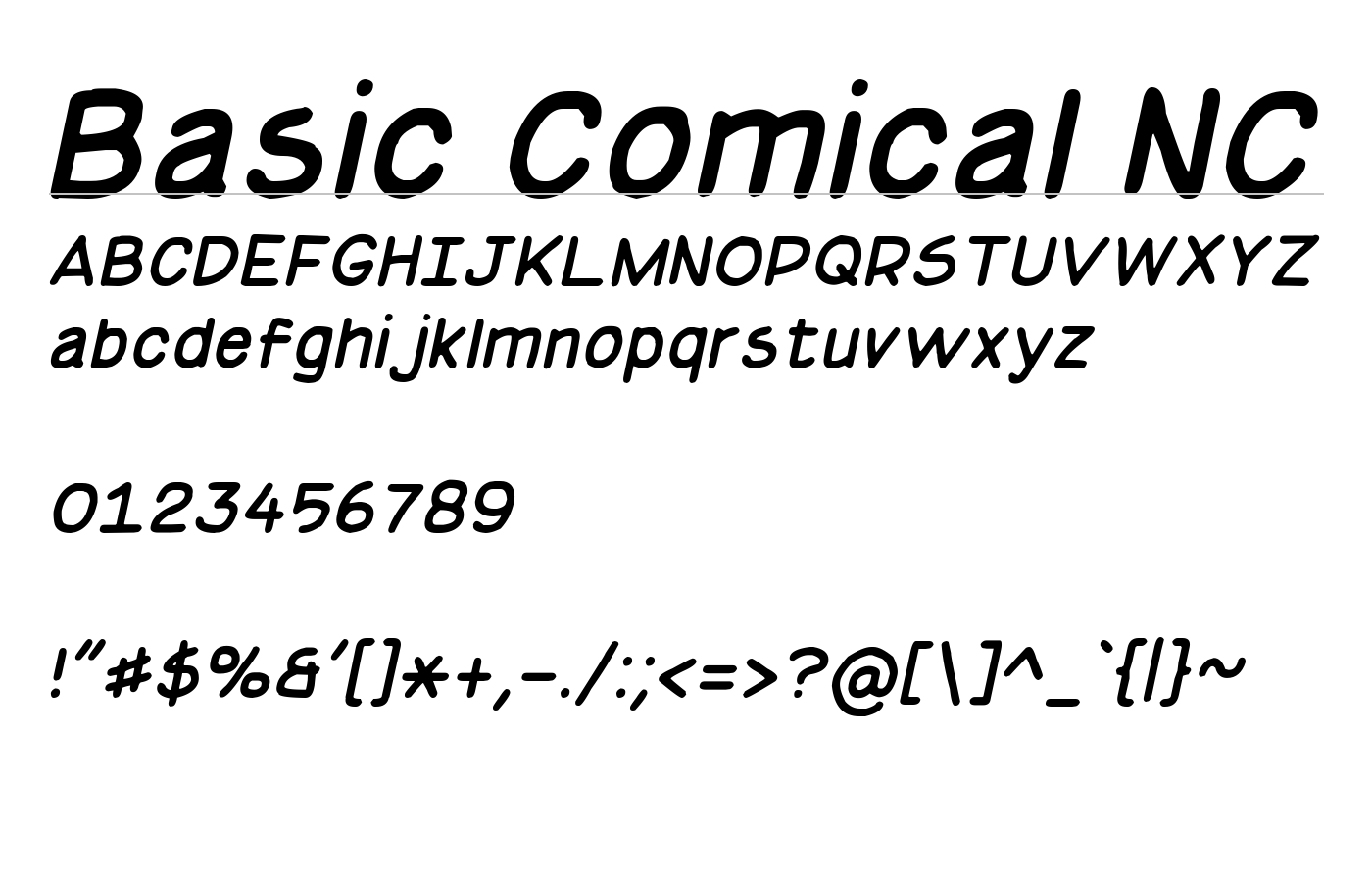
Basic Comical NC is a casual, handwritten-style sans serif font with a friendly and playful vibe. Its slightly irregular, rounded letterforms and moderate slant create an informal and approachable feel, making it ideal for fun, lighthearted designs like comic strips, children’s books, or casual branding. This font works best in headlines, posters, or any creative project needing a relaxed and joyful touch.
Basic Comical NC Font